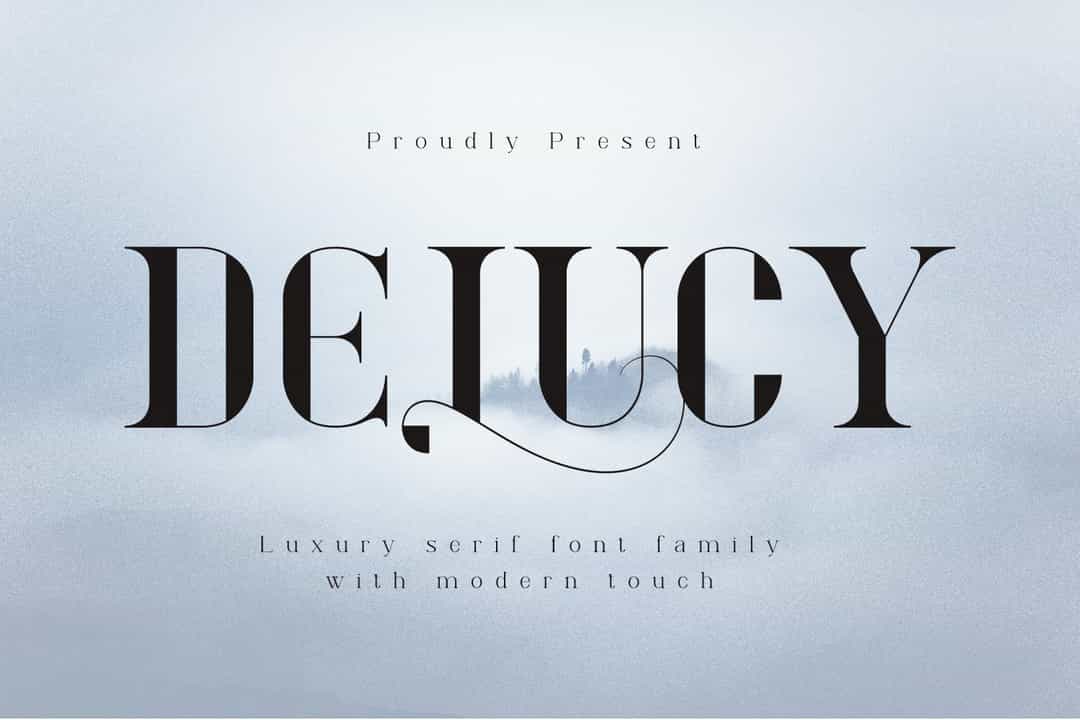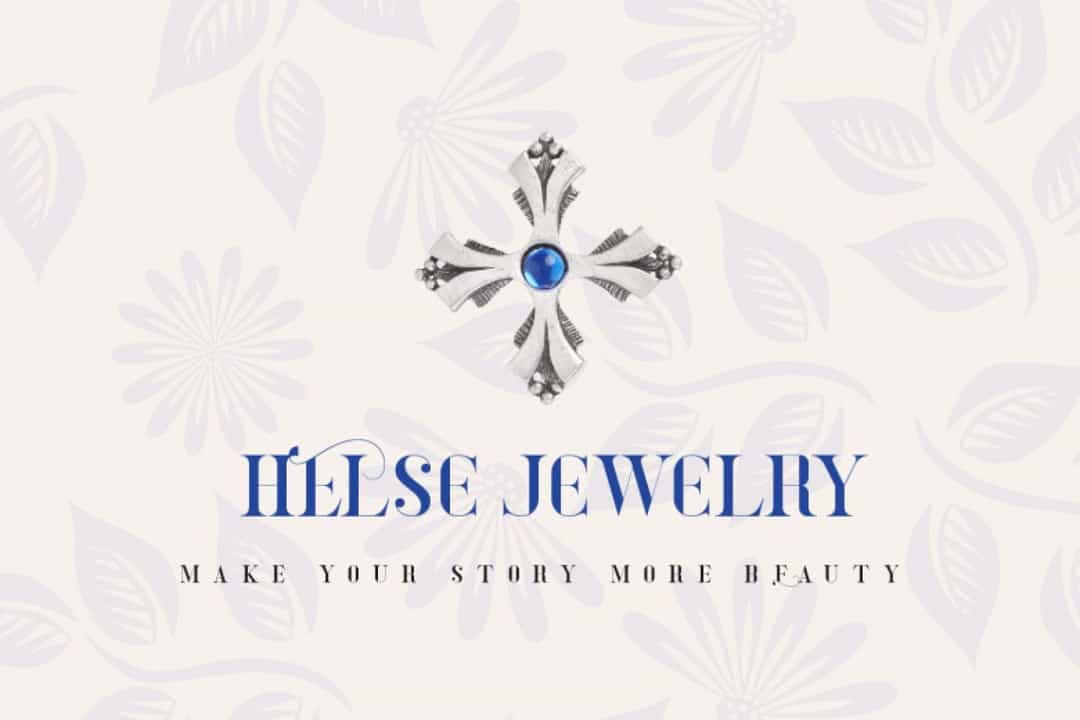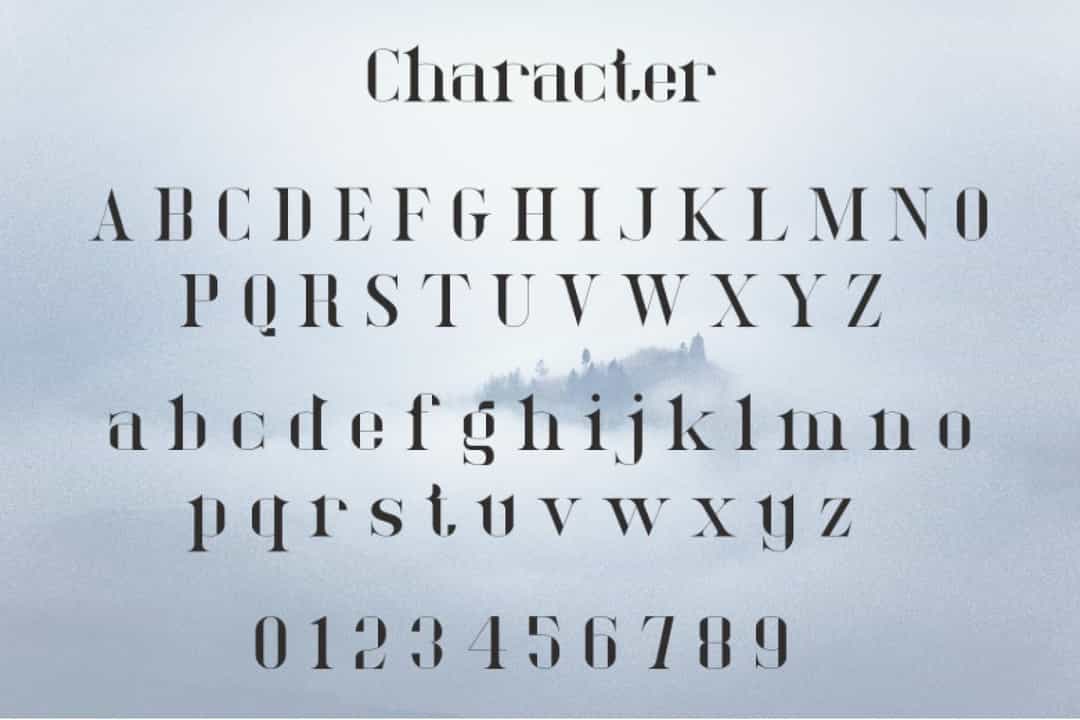
Delucy is a brand new serif font with elegant, sophisticated, and lavish characteristics that makes for an extremely versatile font that can be used on small as well as large design projects. Delucy was specifically created for large design projects which demand luxurious elegance in font design.